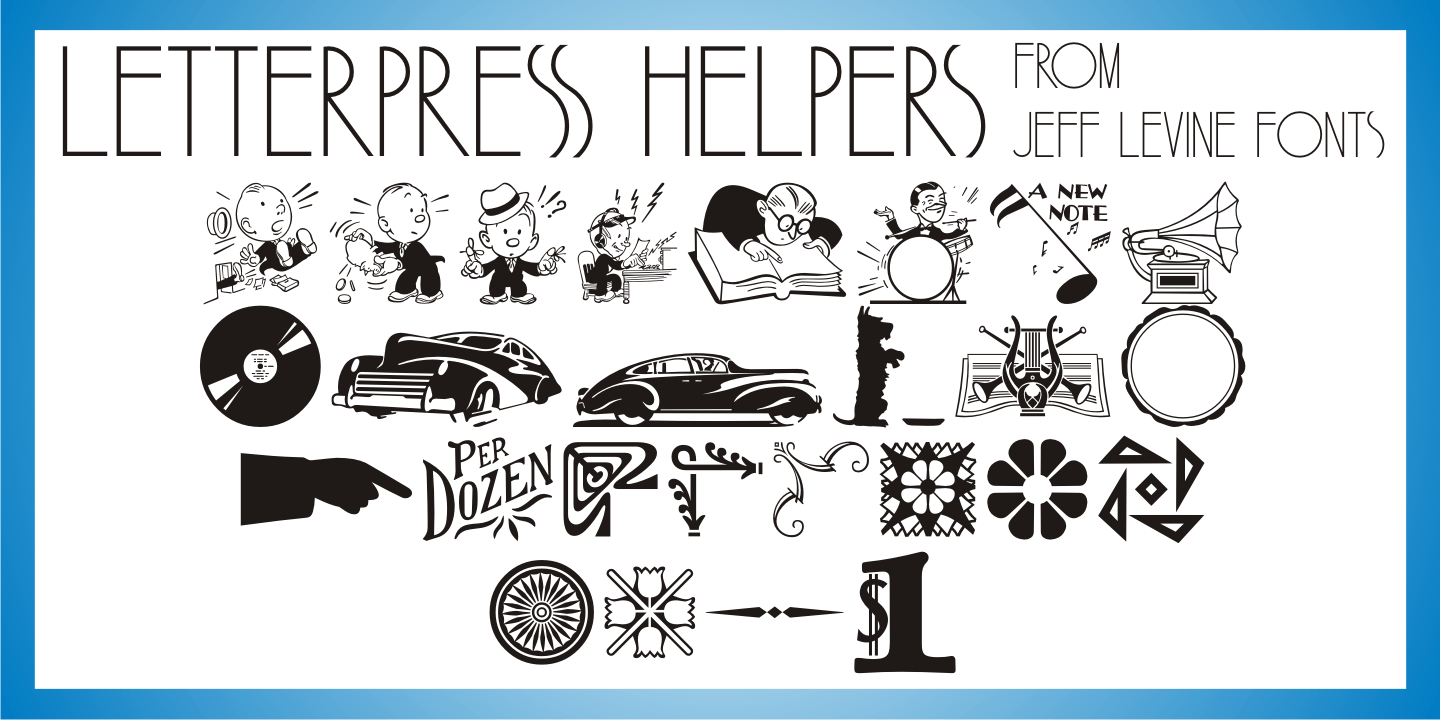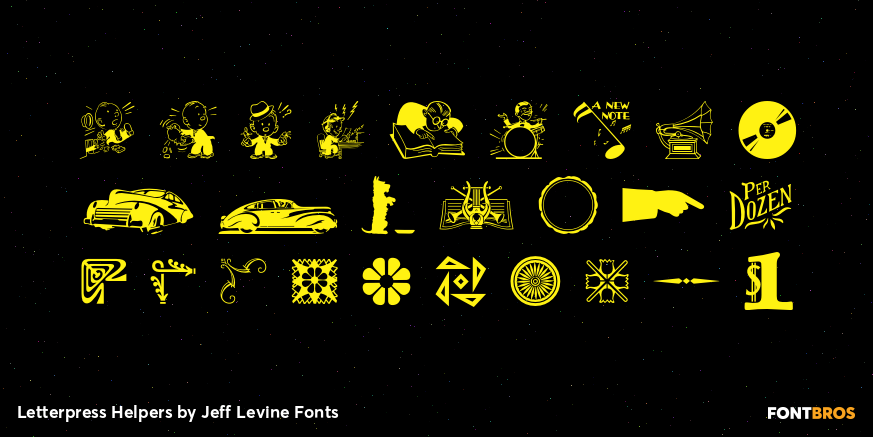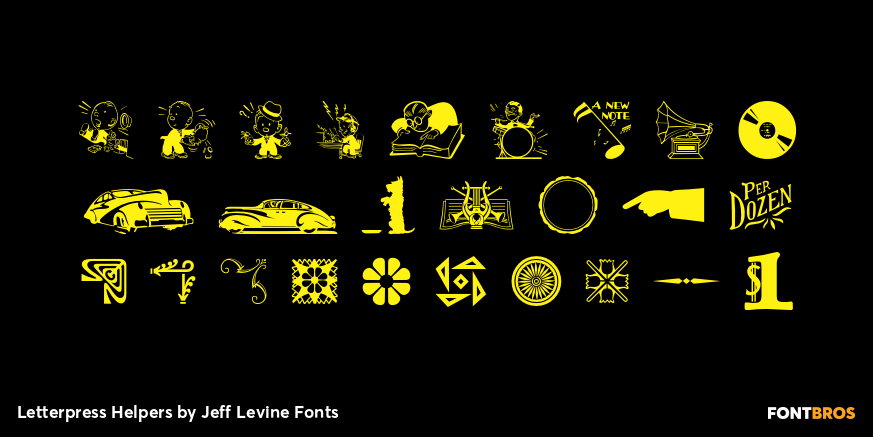
Letterpress Helpers
Letterpress Helpers JNL continues a series of vintage cartoons, border and corner elements, stock designs, sales helpers and other embellishments re-drawn from vintage source material.
Letterpress Helpers JNL Regular by Jeff Levine Fonts